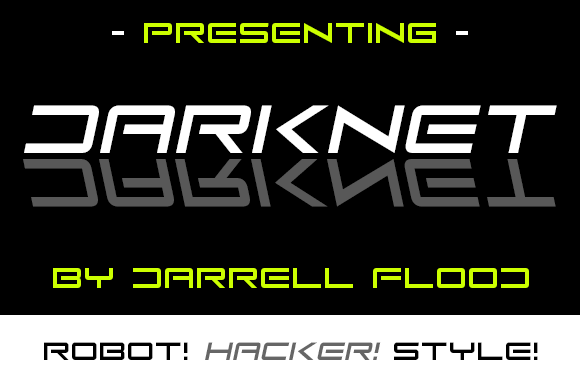
Unleash your creativity and bring your futuristic visions to life with Darknet Font, a groundbreaking display font that embodies the essence of sleek modernism and high-tech aesthetics. Dive into a realm of science fiction and alien-inspired designs, where imagination knows no bounds.
Darknet captivates with its sharp, angular lines and clean-cut edges, evoking a sense of mystery and intrigue. This font is a masterpiece of digital artistry, meticulously crafted to transport your projects into the future. Its streamlined design exudes a feeling of speed and innovation, making it the ideal choice for Android app development.
Step into the future with Darknet, and let your designs shine with unparalleled sophistication. Its crisp and bold strokes demand attention, while its futuristic flair adds an electrifying touch to any project. Whether you're creating posters, website designs, or eye-catching social media graphics, Darknet is your gateway to a world of boundless potential.
Dive into the depths of digital frontiers and let Darknet be your guiding light. Its adaptability and versatility make it a perfect fit for headlines, logos, and branding, ensuring that your message cuts through the noise and leaves a lasting impression. With Darknet, your designs will radiate an aura of innovation and cutting-edge style.
Embark on a journey of creativity with Darknet, the font that defies boundaries and pushes the limits of imagination. Let your designs soar to new heights of ingenuity and originality. Its sleek lines and captivating presence will transform your work into a captivating visual masterpiece. Embrace the future with Darknet and leave an indelible mark on the world of design.